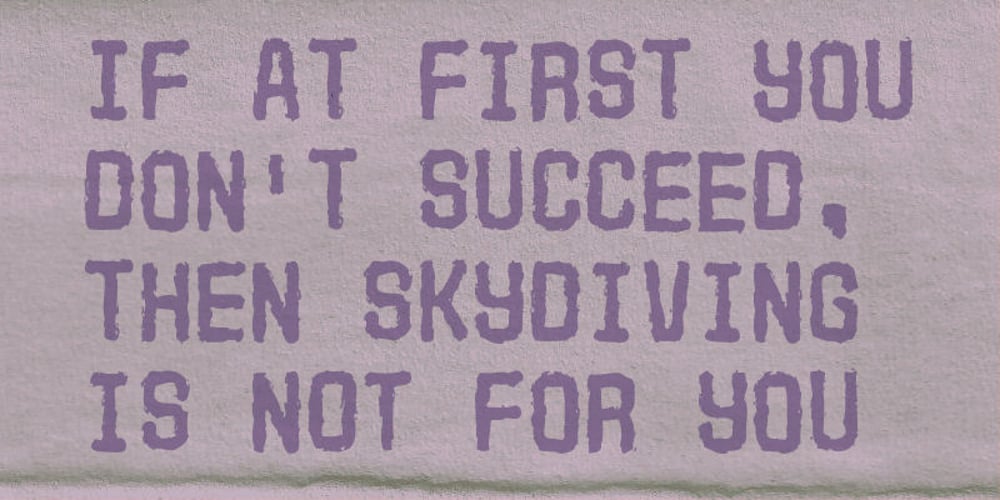
Mono Iltra
Mono Iltra font
Mono Iltra Font Family was designed by Jakob Fischer and published by PizzaDude.dk. Mono Iltra contains 1 styles and family package options. A wrecked, monospaced font containing ligatures for both double letters and numbers, alternate letters and unique accented characters! You will need to use OpenType supporting applications to use the autoligatures.